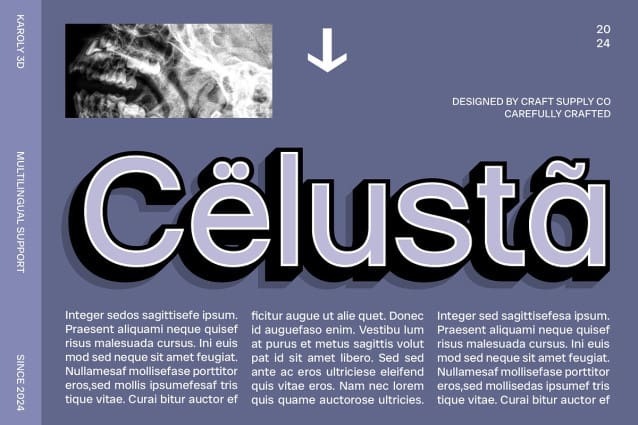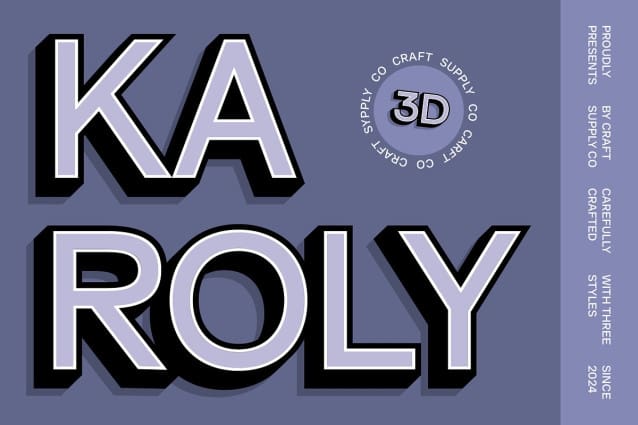
Karoly 3D Font
Karoly 3D Font is a modern sans serif font that captivates with its striking 3D effect, delivering a dynamic and engaging appearance perfect for contemporary design projects. The font’s clean lines and minimalist shapes work together to create a sense of visual depth, imbuing your designs with a modern and futuristic aesthetic that resonates with today’s audience.
Visual Depth for Enhanced Appeal The unique 3D effect of Karoly 3D adds an extra layer of sophistication and intrigue to your designs. This depth not only enhances the font’s overall appeal but also highlights key elements, making it ideal for branding, posters, and digital applications. The interplay of light and shadow creates an engaging visual experience that draws the viewer in, ensuring your message stands out.
Versatile for Various Design Applications Karoly 3D is versatile and well-suited for a wide range of applications, from eye-catching branding to stunning promotional materials. Whether you’re designing a sleek website, an attention-grabbing poster, or a bold logo, this font provides the perfect blend of modernity and flair, elevating your project to new heights.